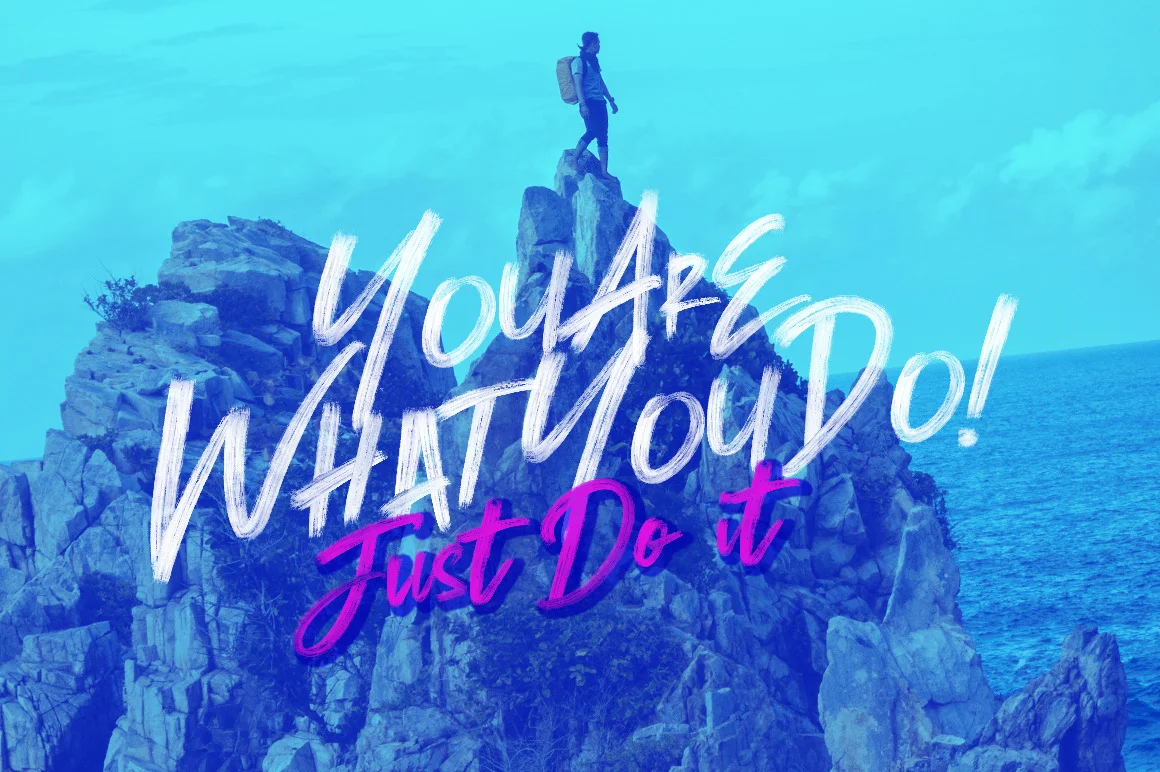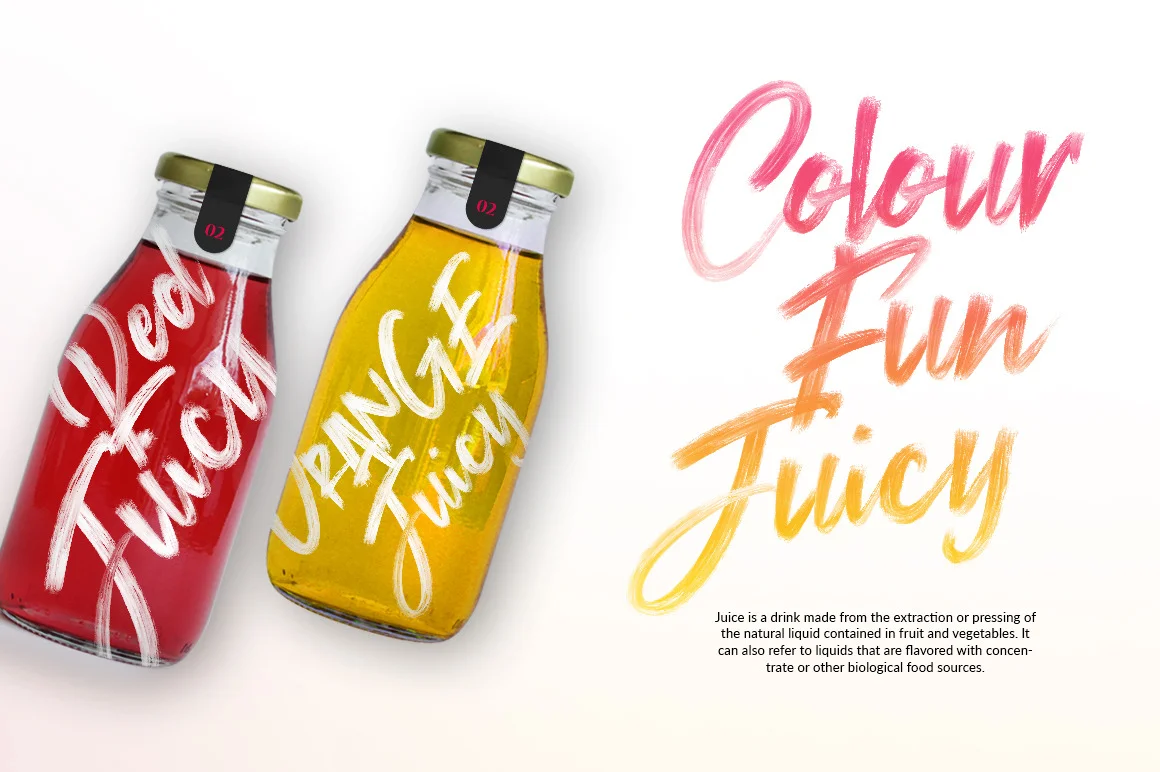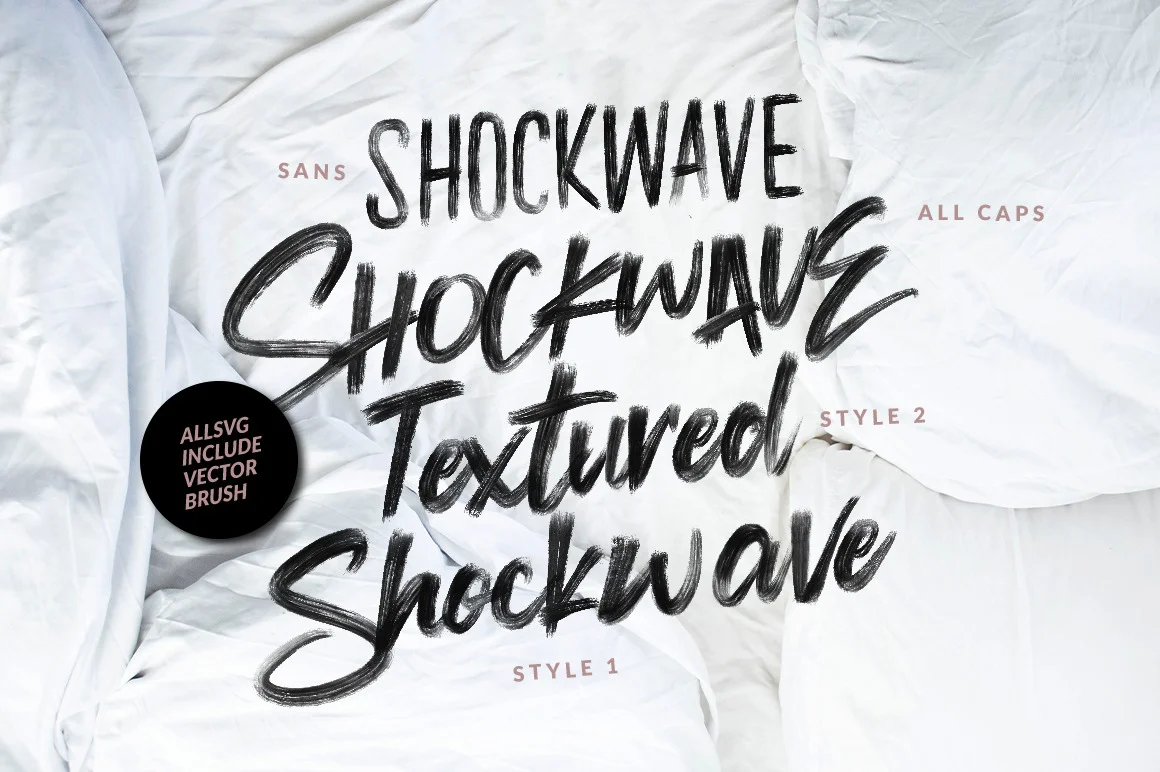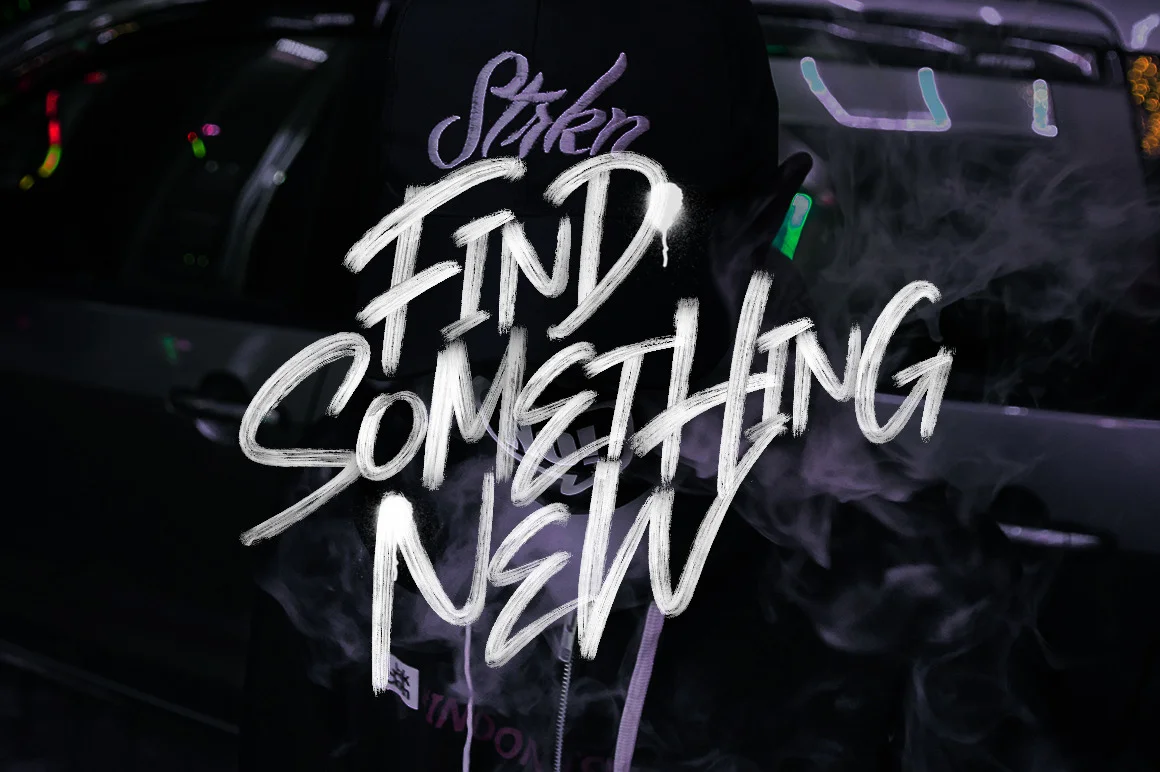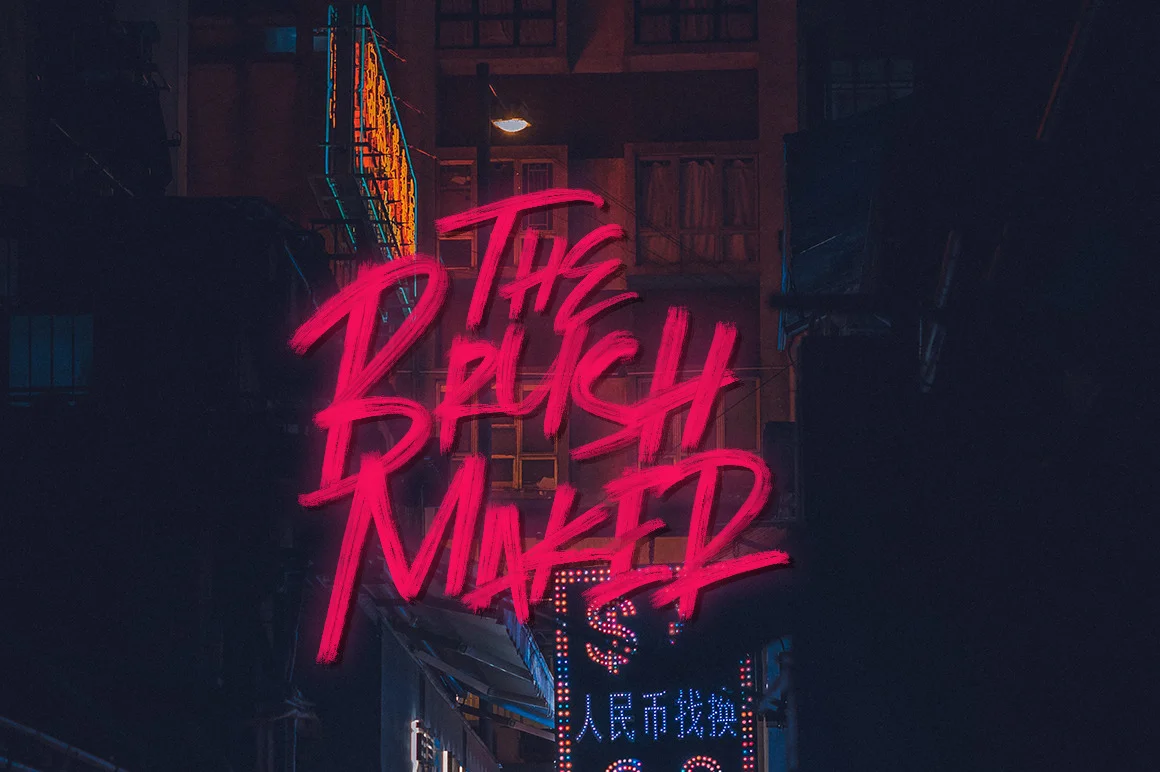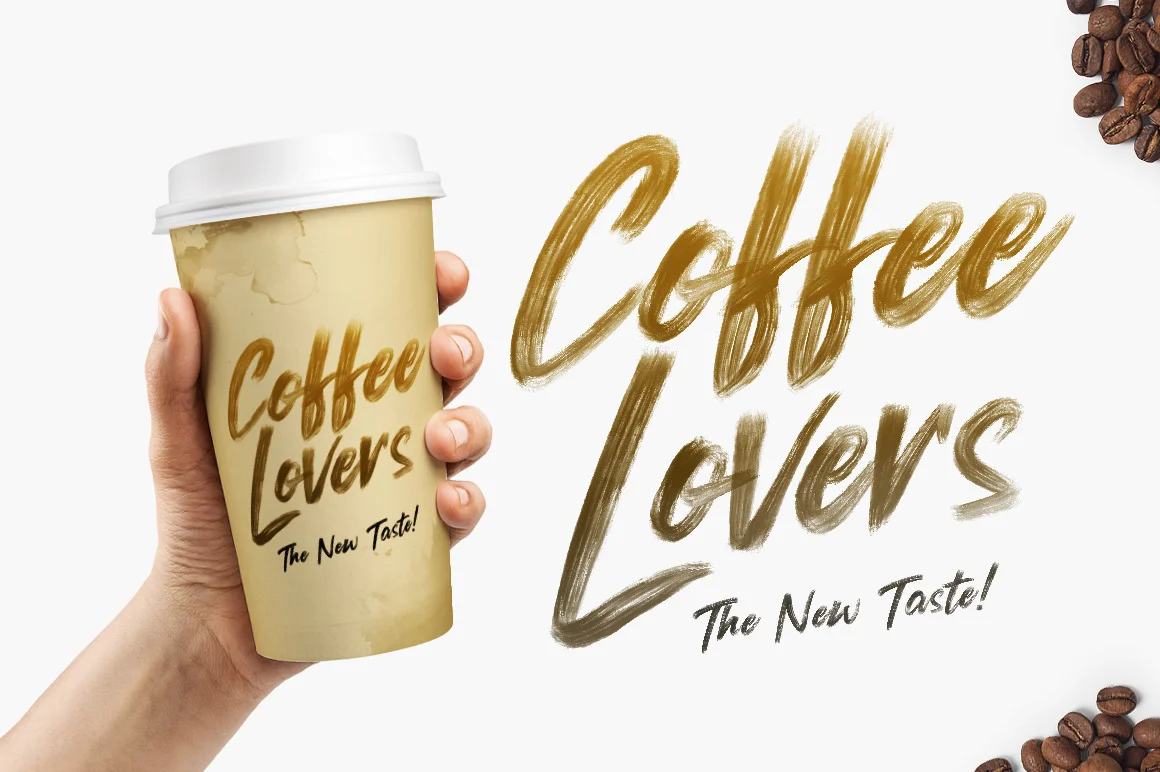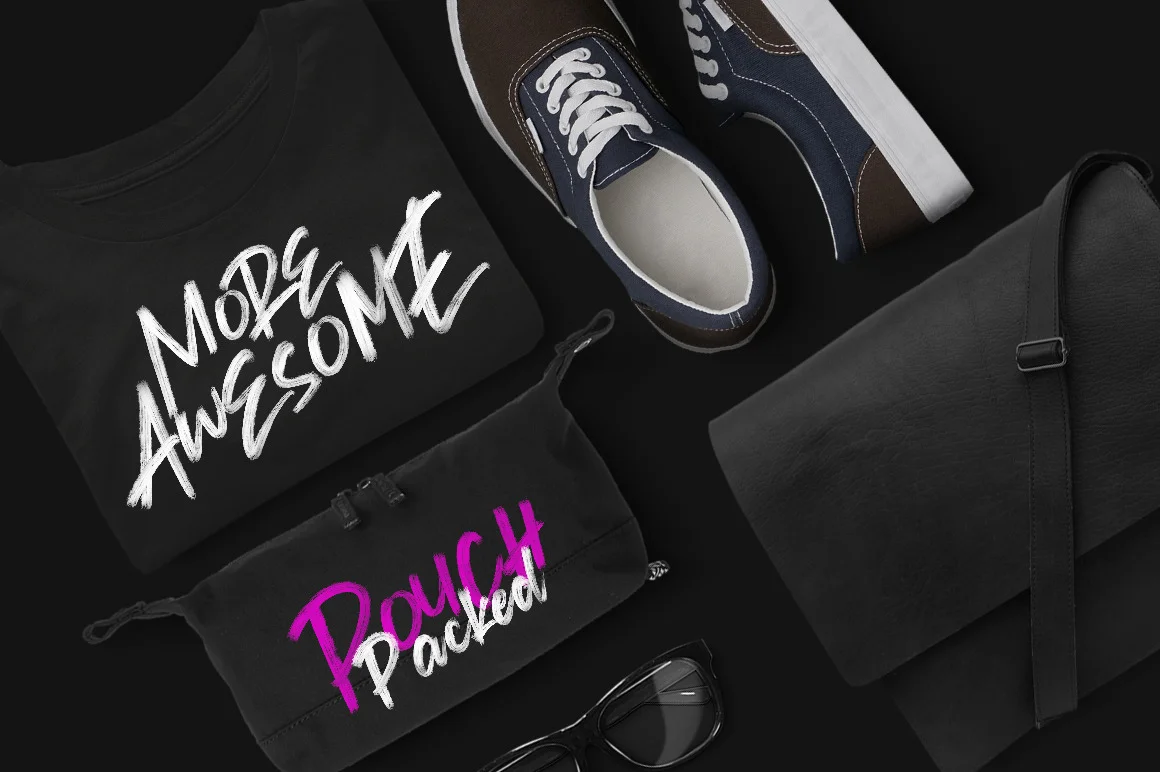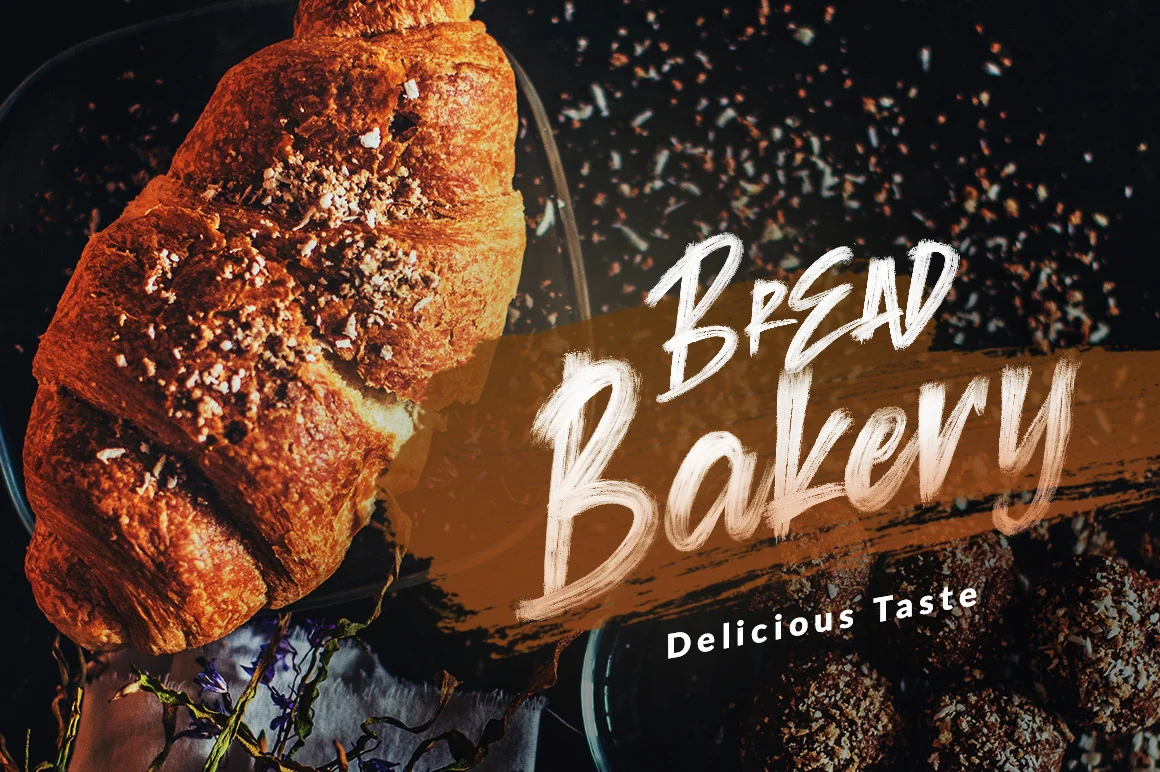
Shockwave SVG Collection Font
Introducing the new Brush Fonts SVG with the real Brush Textured. Create with love so crafted, just type what you want and so easy to use into your project. Shockwave SVG Font • Use this version of the script font to re-create stunning hand-lettering with high-definition brush textures, completely built in to the font as a transparency. Requires Photoshop CC 2017 or Illustrator CC 2018 (or newer) to use. WHAT'S INCLUDED IN THIS PACK : Shockwave SVG Shockwave Brush Vector Shockwave SVG All Caps Shockwave vector All Caps Shockwave SVG Alt Caps Shockwave Vector Alt Caps Shockwave SVG Sans Shockwave Vector Sans To enable the OpenType Stylistic alternates, you need a program that supports OpenType features such as Adobe Illustrator CS, Adobe Indesign & CorelDraw X6-X7. There are additional ways to access alternates, using Character Map (Windows), Nexus Font (Windows), Font Book (Mac) or a software program such as PopChar (for Windows and Mac).